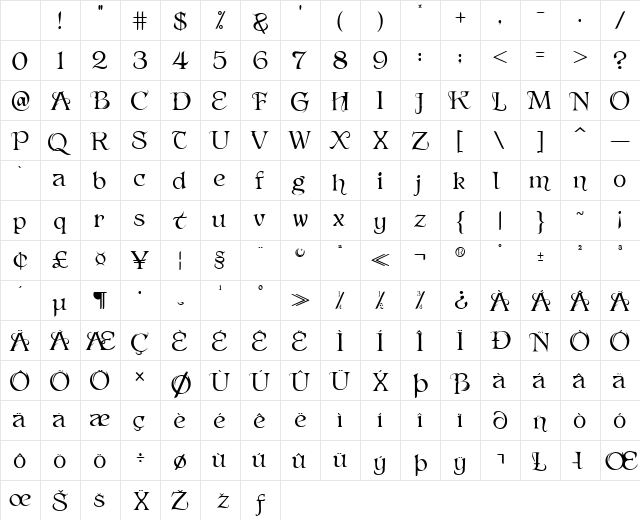
Complete Citadel of Blackrose Regular glyph index. Displaying only characters natively supported by Citadel of Blackrose Regular font.
Citadel of Blackrose is a composed and adaptable typeface that performs quietly and consistently across a wide range of design contexts.